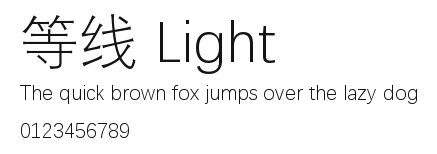
等线 Light Preview
• Font Name: 等线 Light
• Full Font Name: 等线 Light
About 等线 Light.TTF
等线 Light.TTF is a modern, elegant sans-serif font designed for ultimate readability and visual harmony. Perfect for branding, headlines, web design, and print materials.